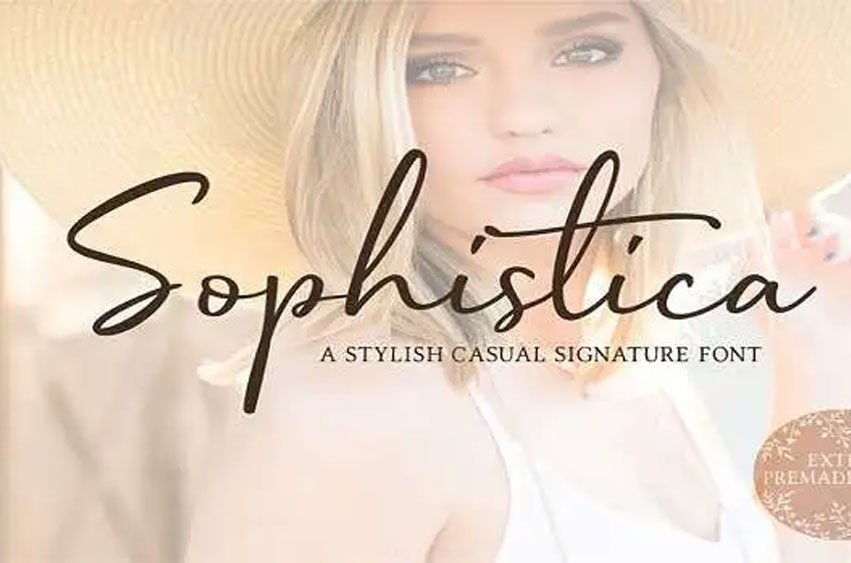
Sophistica Font
Sophistica Font is an elegant Handwritten font that is created by the brilliant 50 Fox and can be downloaded for free for personal usage only.